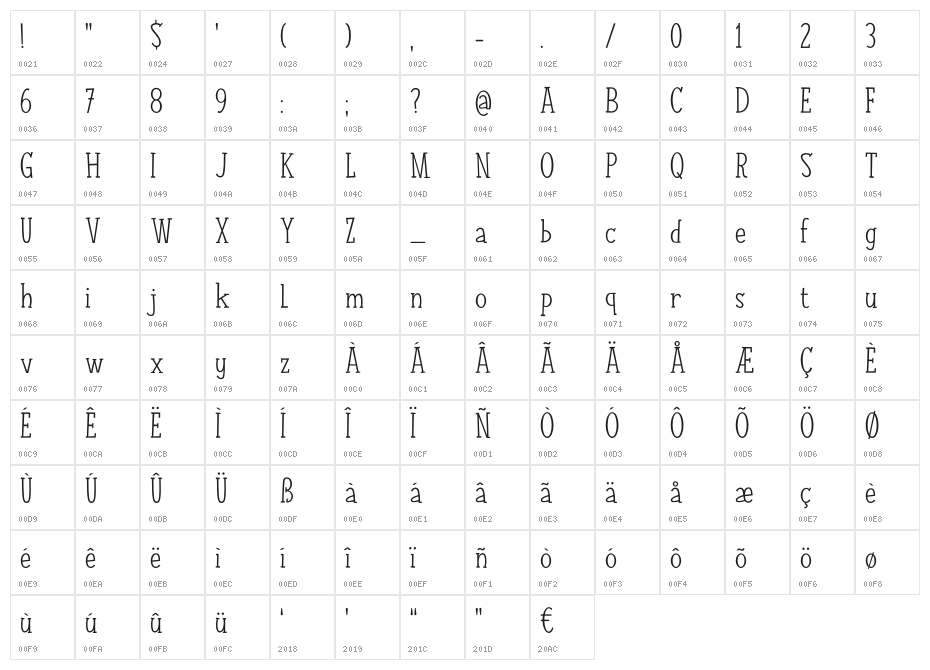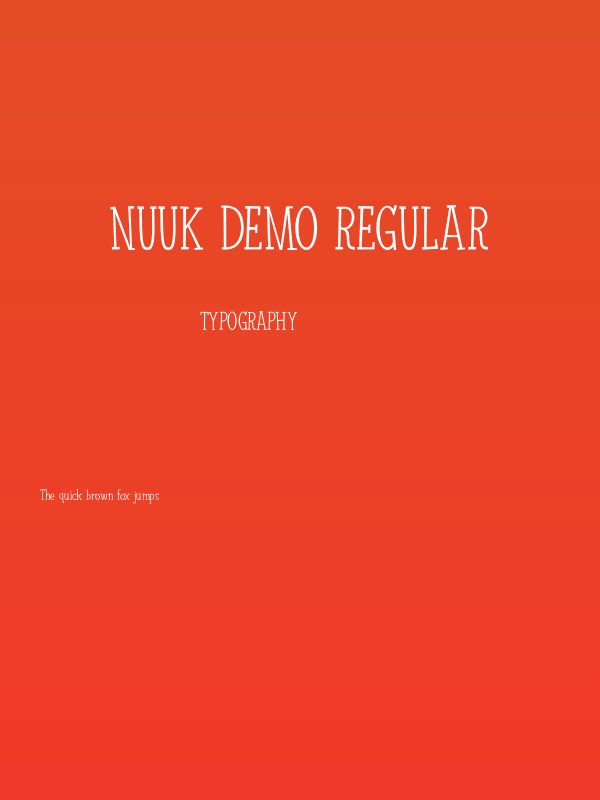
Nuuk DEMO Regular Font
Nuuk DEMO Regular Description
This font features a playful and slightly whimsical design, characterized by its tall, narrow letterforms with subtle curves and a hand-drawn aesthetic. The uppercase letters are particularly elongated, giving a sense of elegance and sophistication, while the lowercase letters maintain a consistent style that complements the uppercase. The numerals are clear and legible, with a unique touch that matches the overall style. Special characters are included, adding versatility for various design needs. The font's distinct personality makes it suitable for creative projects that require a touch of charm and individuality.
| Overall Style | Whimsical |
| Proposed Projects | Ideal for children's books, greeting cards, playful branding, and creative posters. |